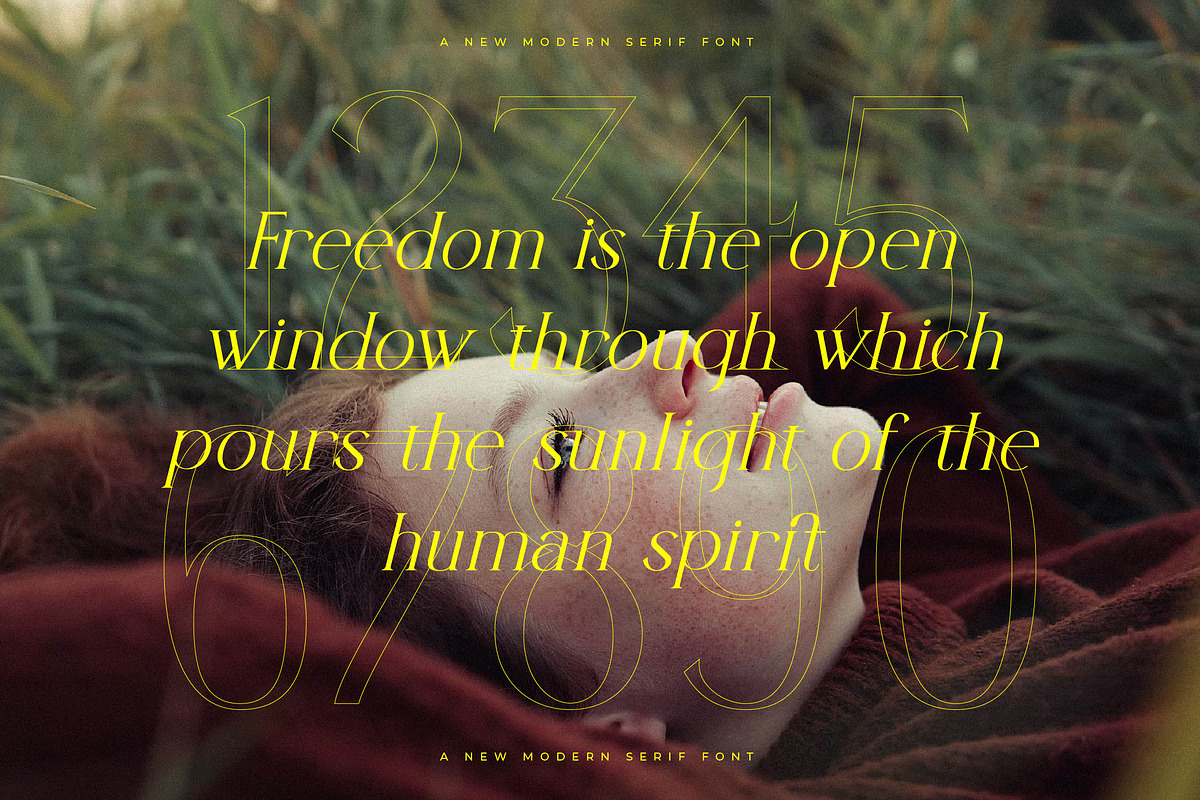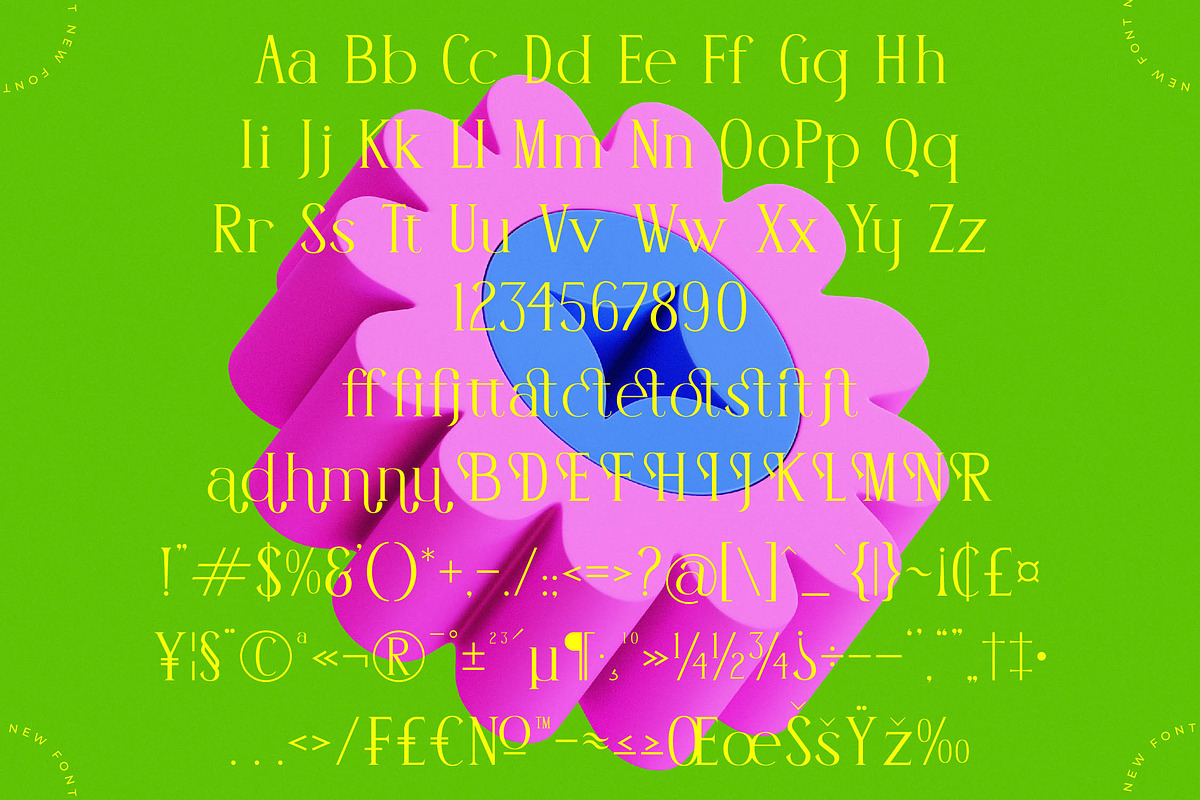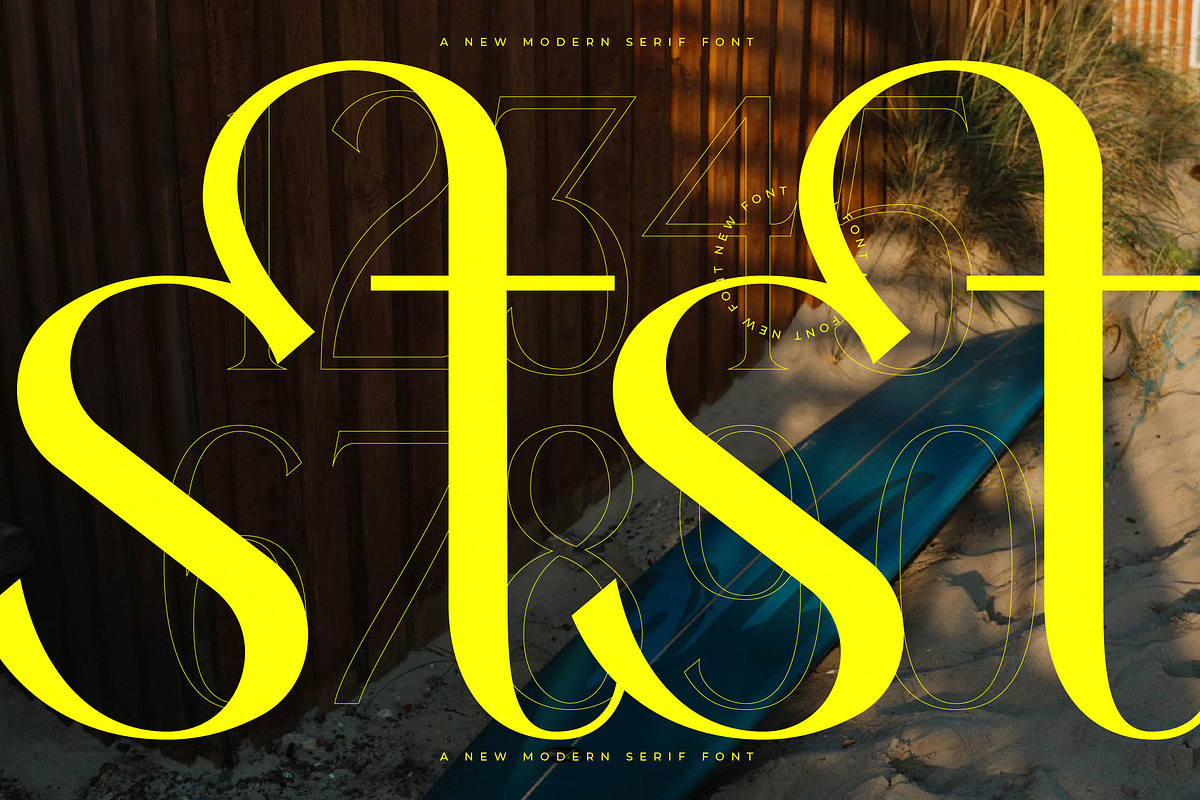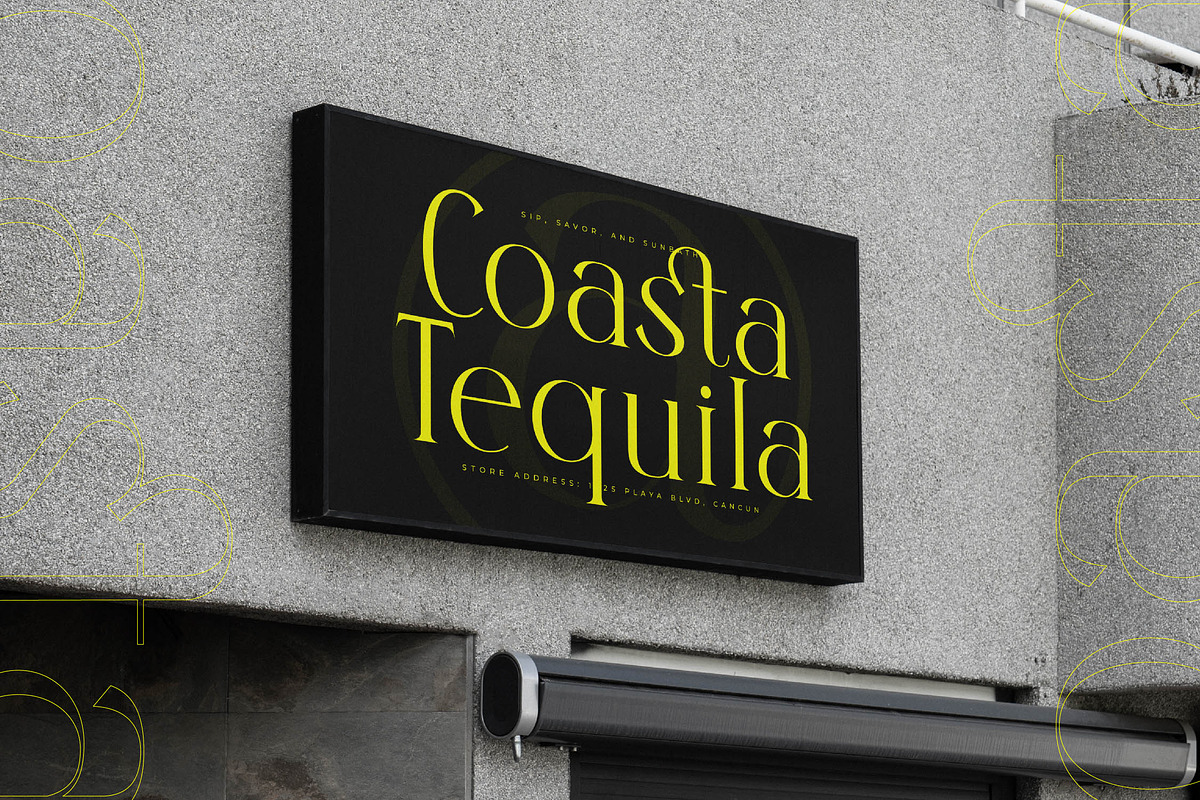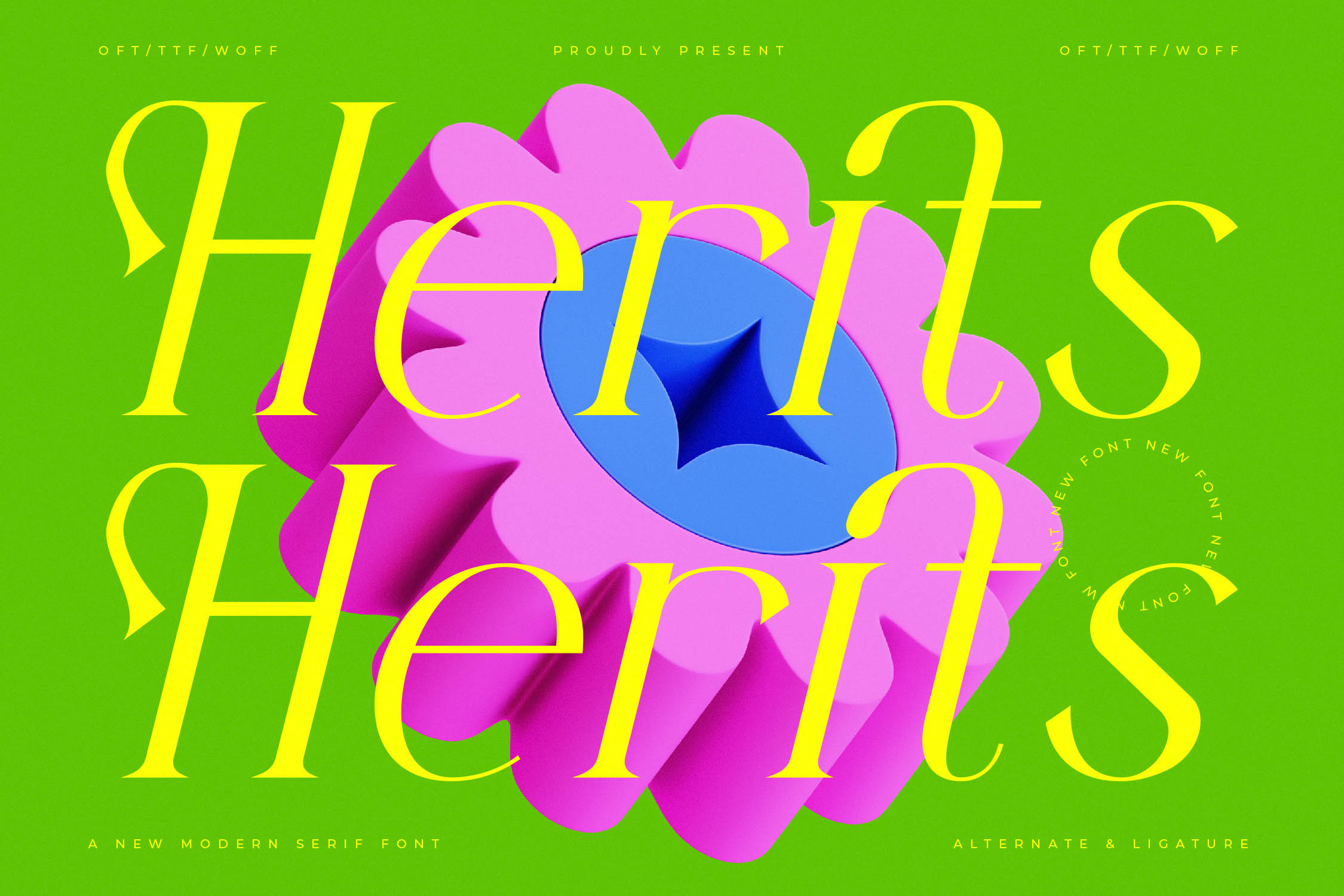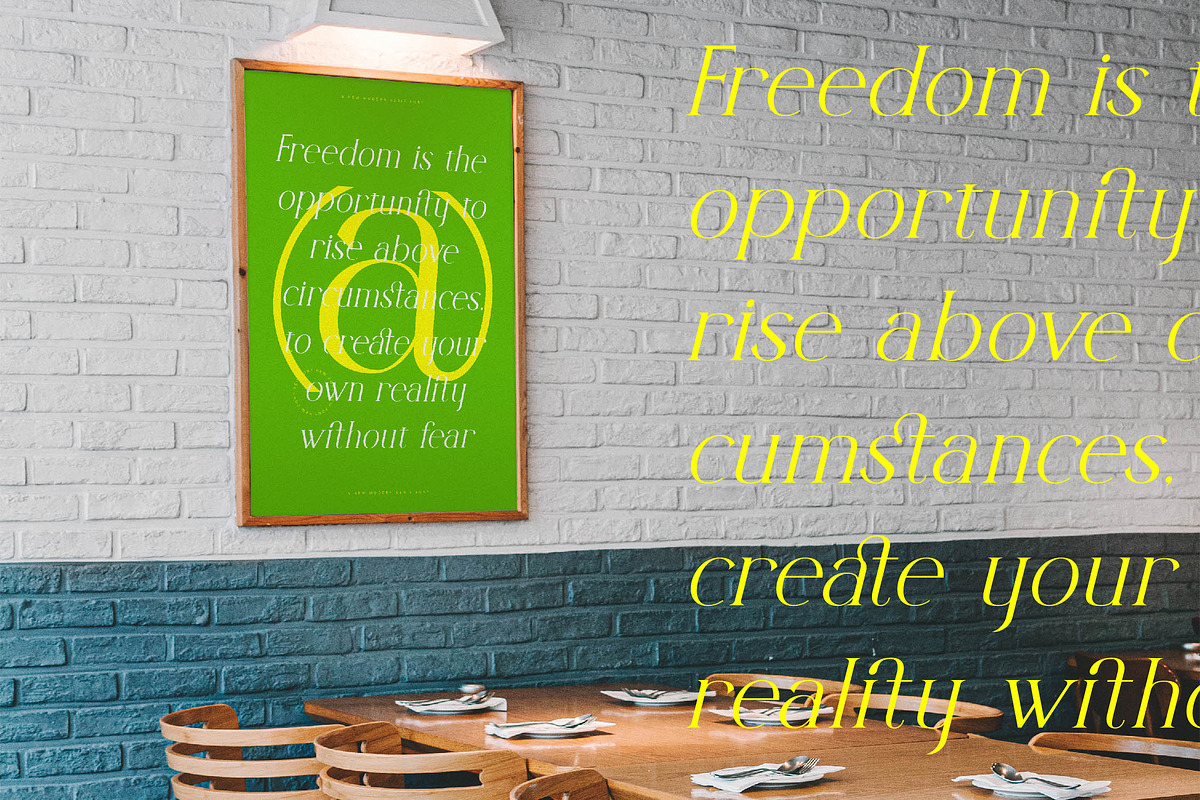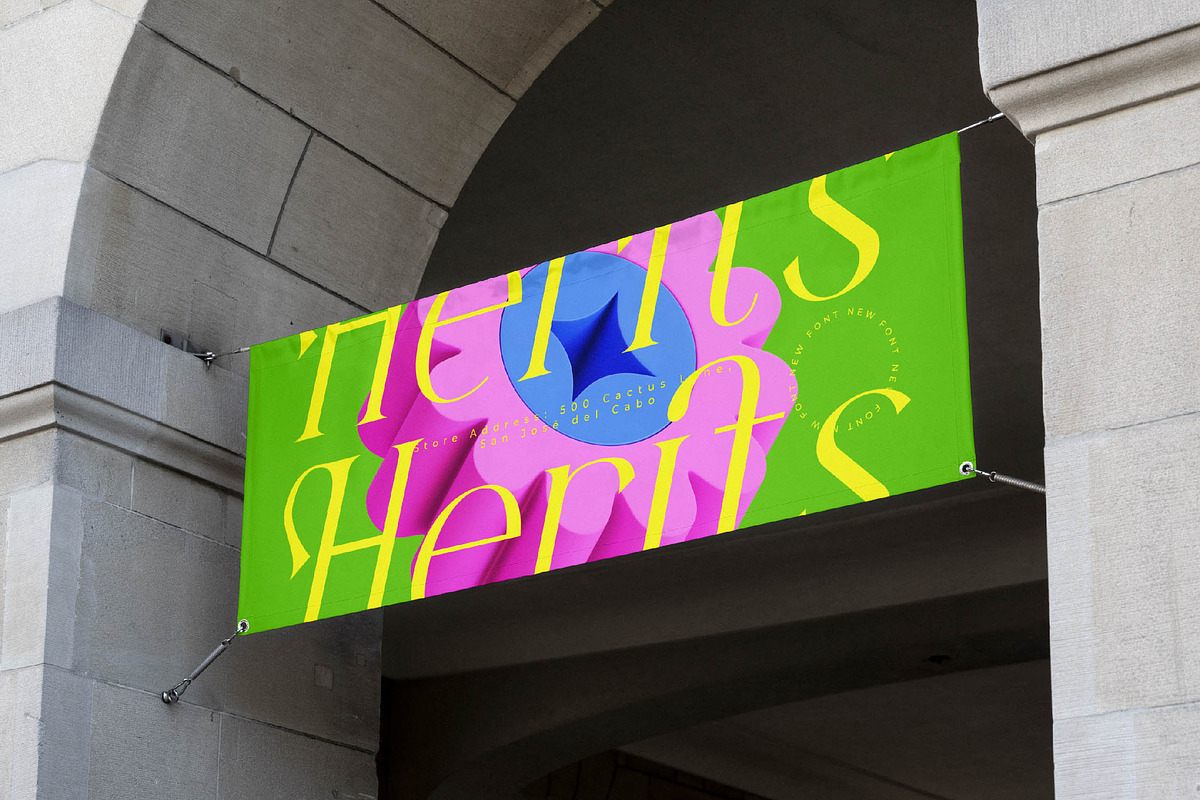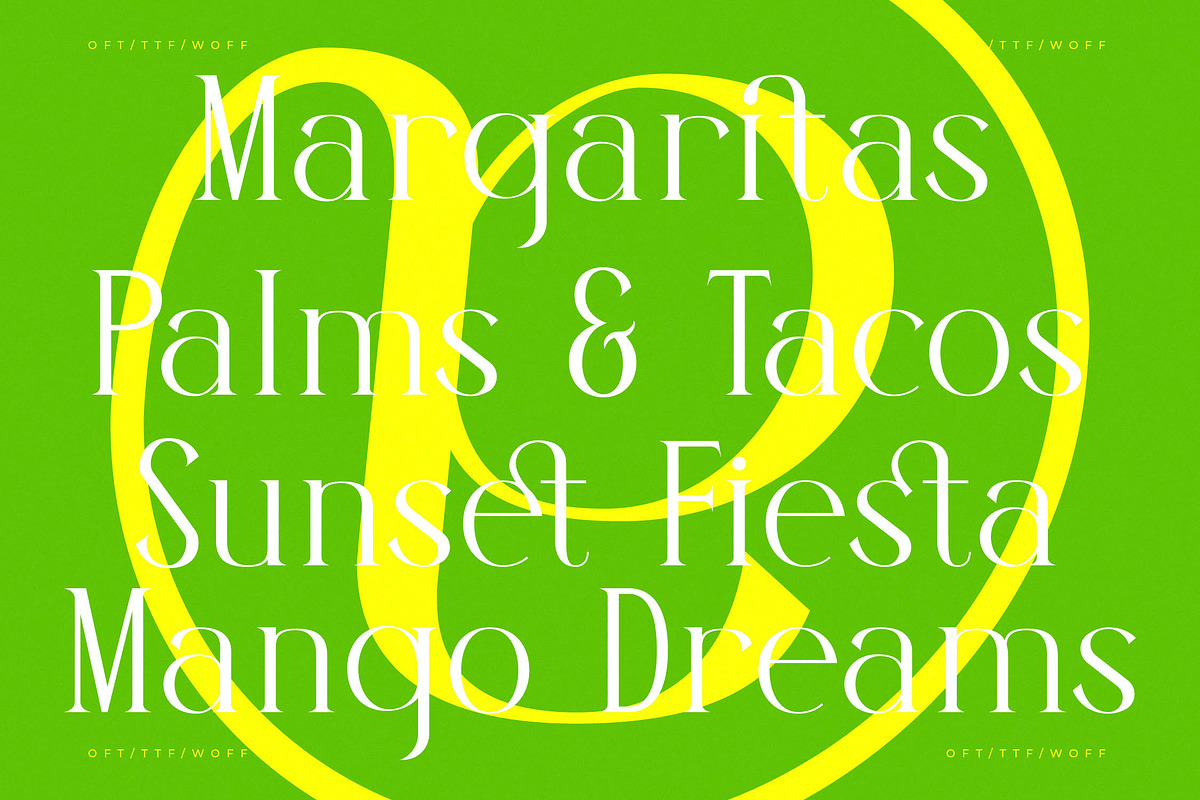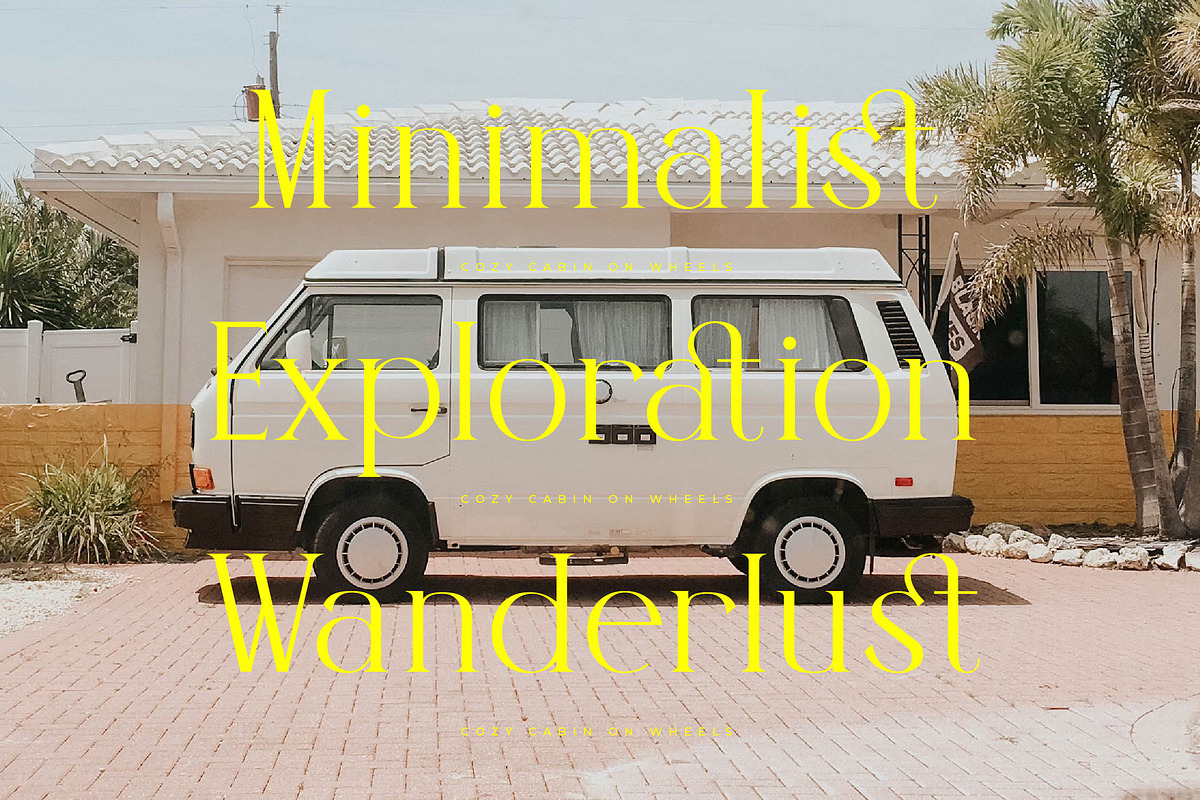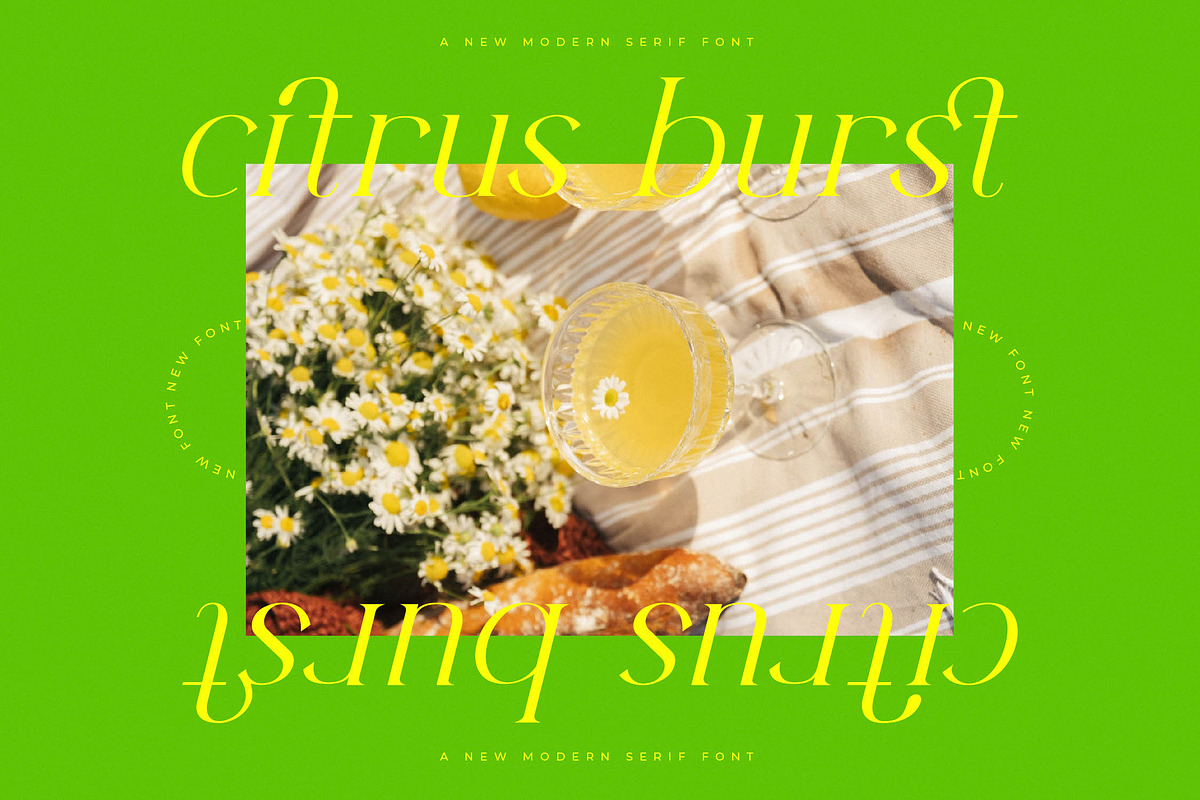
Herits Modern Serif Font
Herits Modern is a sleek and elegant serif font that combines contemporary design with a touch of classic sophistication. With its clean lines, geometric forms, and refined serifs, this font delivers a bold yet approachable style—perfect for high-end branding, editorial design, and premium print materials. Its balanced structure ensures excellent legibility, while the carefully designed alternates add versatility to any creative project.
Ideal for upscale logos, luxury packaging, and sophisticated layouts, Herits Modern seamlessly merges timeless elegance with a modern edge. Whether you're creating polished typography for digital or print, this font elevates your designs with a fresh, stylish appeal, making it the perfect choice for projects that require both refinement and contemporary flair.
- Ligatures, Alternates & Swashes